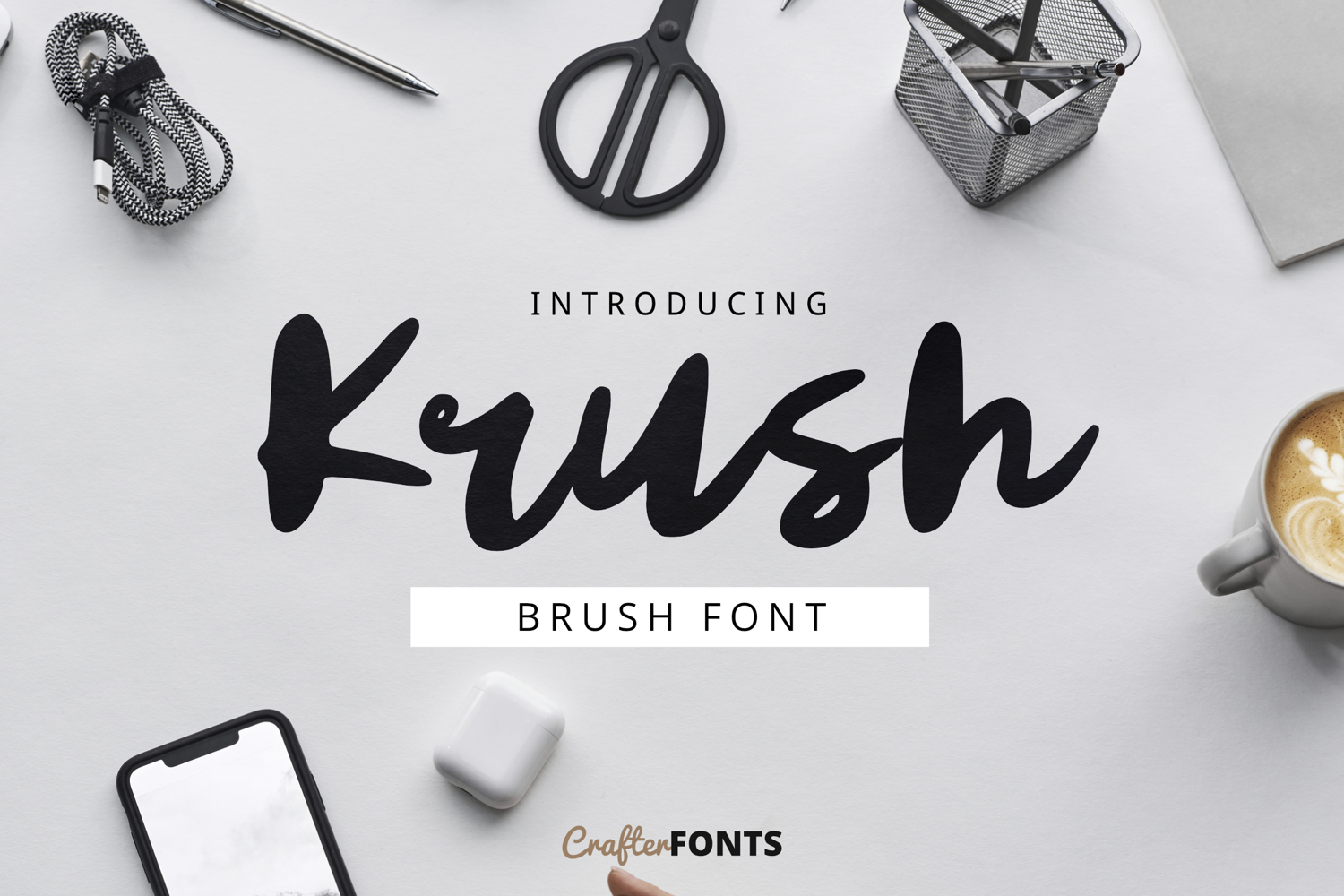
Krush Modern Brush Font
Krush Regular
Krush – Modern Brush Font
Make a bold statement with Krush, a modern brush font designed with thick, expressive, and textured handwritten strokes. Its energetic, free-flowing aesthetic gives it a powerful yet authentic human touch—making it ideal for lifestyle branding, modern logo designs, apparel printing, social media quotes, artistic posters, and eye-catching product packaging.
• Basic Latin Character Set – Packed with a complete set of Uppercase, Lowercase, Numbers (0-9), and essential Punctuations/Symbols.
• Character Set & Multilingual Support – Includes Uppercase, Lowercase, Numbers, essential Punctuations, and extended character support for languages such as English, French, Spanish, German, Italian, Indonesian, and Malay.